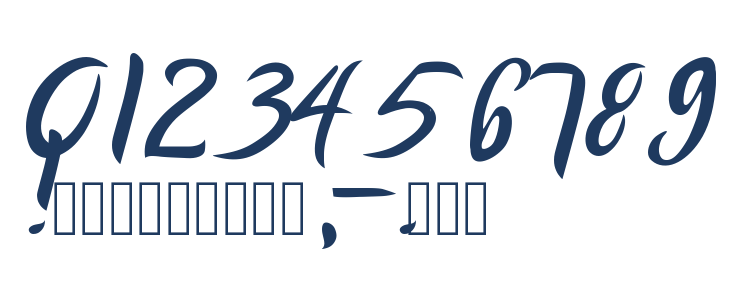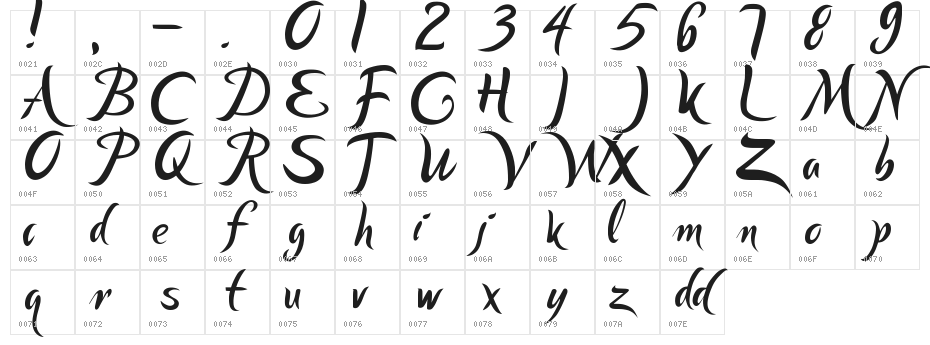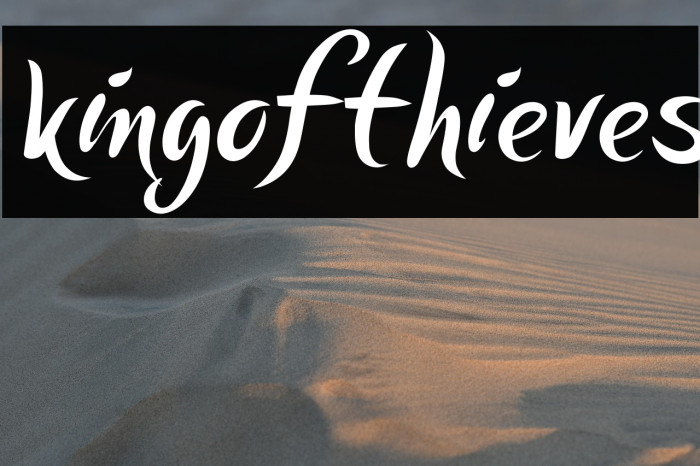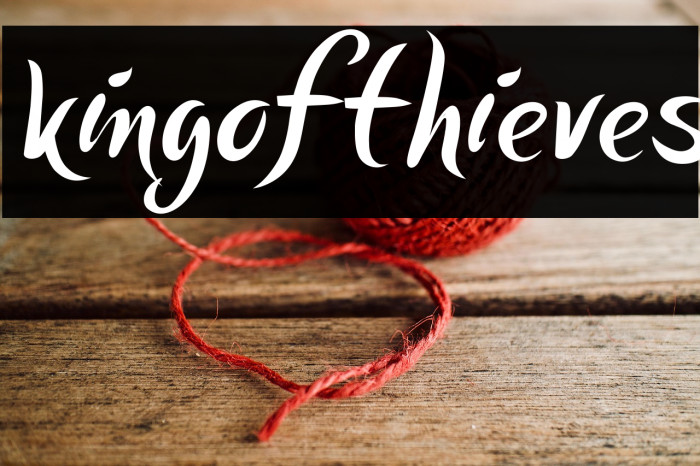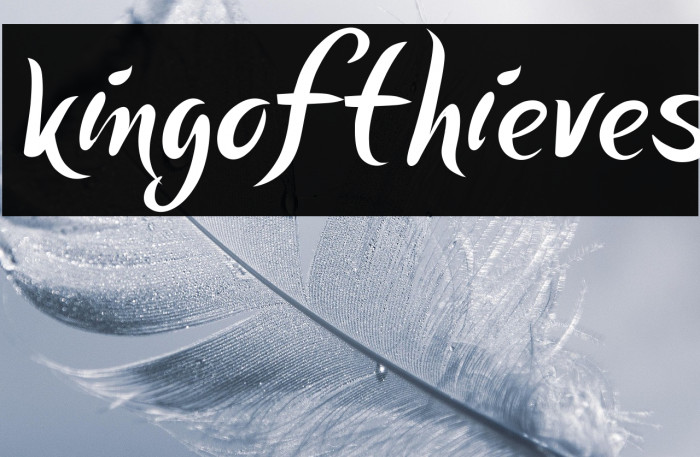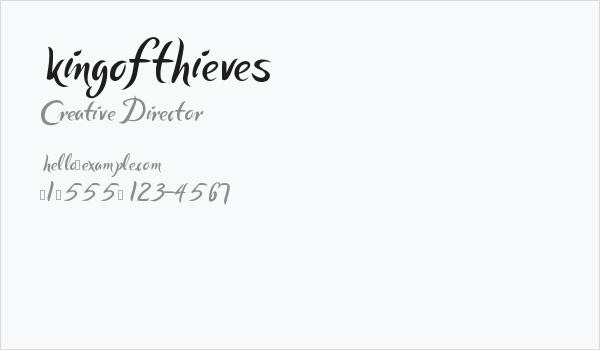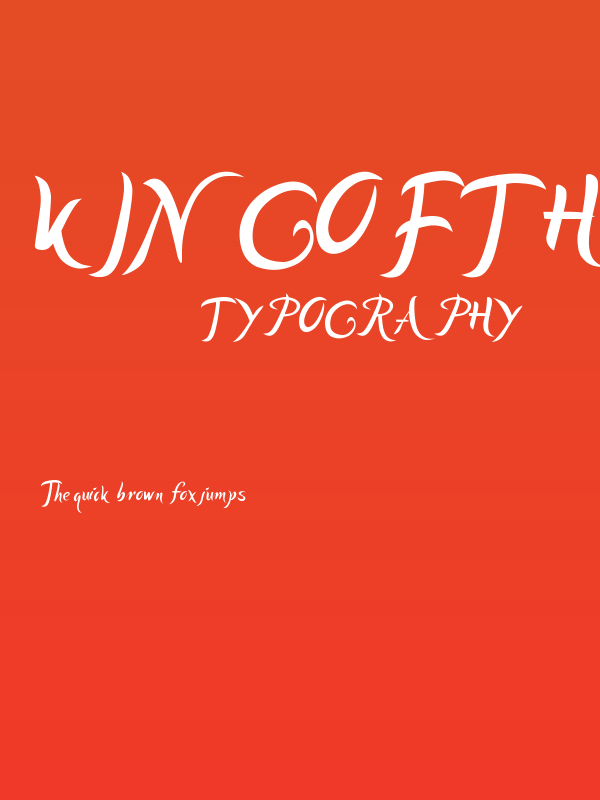
kingofthieves Font
kingofthieves Description
This font features a dynamic and flowing script style, characterized by its elegant and fluid strokes. The uppercase letters exhibit a graceful, sweeping motion, while the lowercase letters maintain a consistent rhythm with slightly exaggerated curves. The numerals are bold and distinct, complementing the overall aesthetic. The special characters are seamlessly integrated, maintaining the font's cohesive style. This font exudes a sense of movement and sophistication, making it suitable for creative and expressive design projects.
| Proposed Projects | Ideal for wedding invitations, branding, logo design, and artistic posters. |